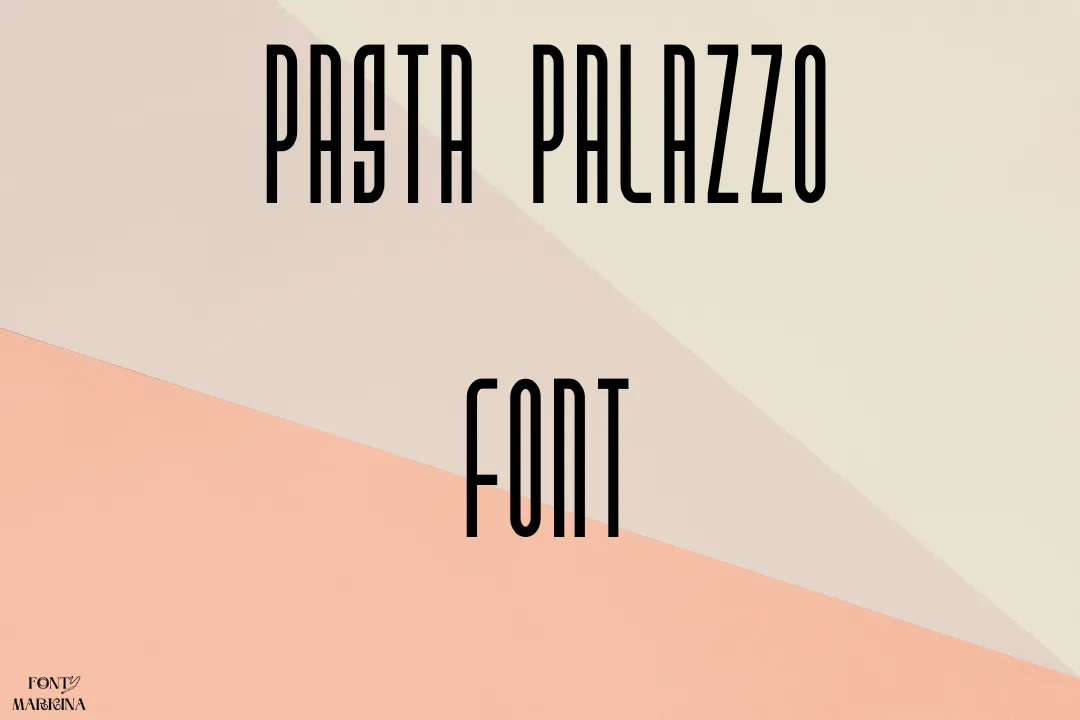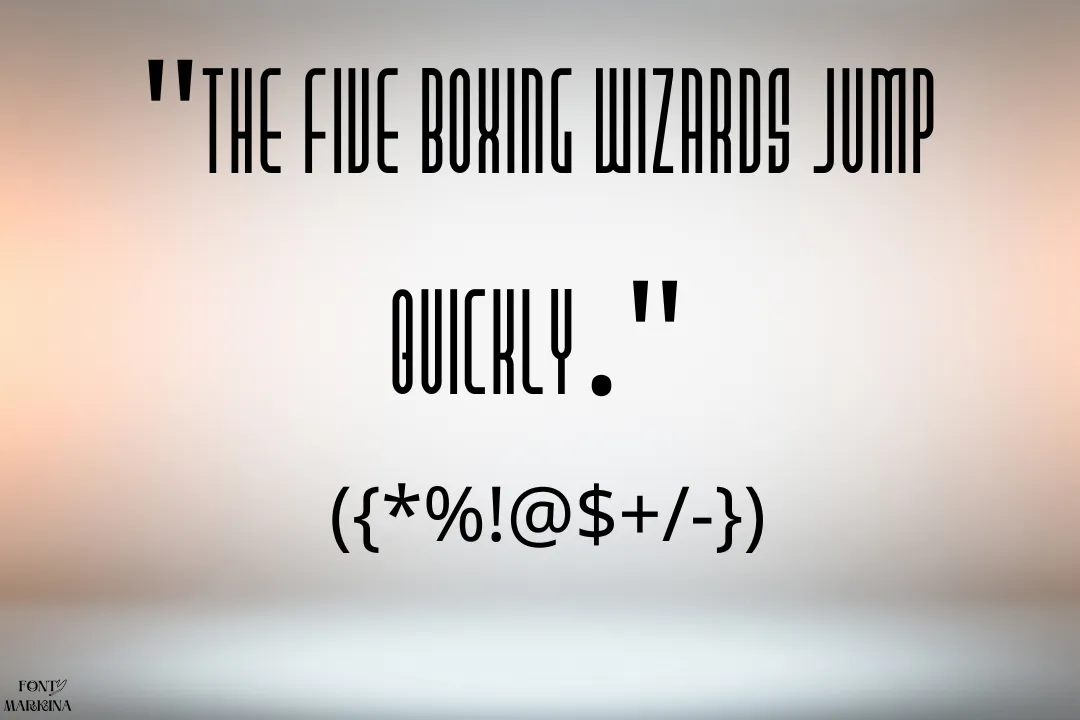
Hey! there to everybody, today we come with a modern texture known by the name Pasta Palazzo Font. This stylish typeface falls in the category of the Fancy family of fonts. The original and main creator of this typography is Mike Brando.
Because of too many unique styles and characters, this typeface is becoming popular day after day. Because of the font’s large X height and round corners this typeface is looking more gorgeous and attractive. Apple Chancery font is the same alternative as this family.
Uses of Pasta Palazzo Font
The main of this font family is in all graphics and text designs. Even all businessmen wish to utilize this family for their projects. It is useful for all sectors as they are related to educational institutions or business sectors. Not enough, for presentations, this texture is well-suitable.
Because of its classic look, it is very famous and you can also make the proper pairing of this family with Moana font in order to get more classic results. For wedding cards of your ceremony, business project cards, and even invitation cards, the use of this font is familiar. YouTubers use this family for their vast variety of work and videos.
Pasta Palazzo Font
What is the type of Pasta Palazzo?
This stunning typography lies in the classification of a fancy family of fonts. It has different modern styles.
Where we can use Pasta Palazzo typeface?
According to your desires and requirements, you can utilize this family anywhere easily.